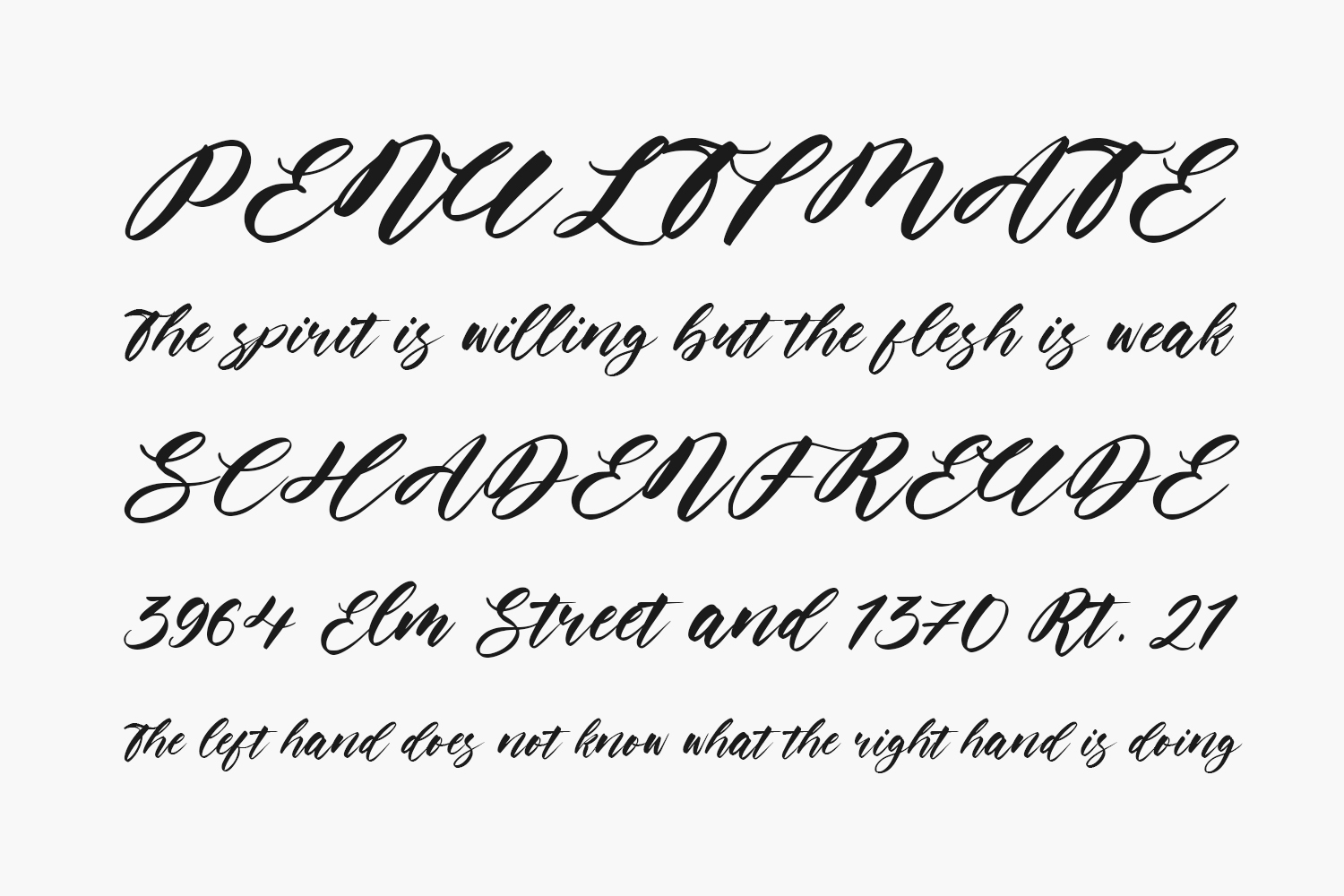
Heroic Trouble Free Font is a modern and emotive script font that evokes feelings of strength, determination, and heroism. The font’s unique letterforms are bold, powerful, and confident, with a modern and stylish touch, making it perfect for creating designs that evoke a sense of power and leadership. It’s perfect for creating headlines, titles, posters, branding, and packaging. The font’s design is also great for creating a sense of inspiration, making it ideal for motivational quotes, posters, and projects that aim to inspire and uplift.